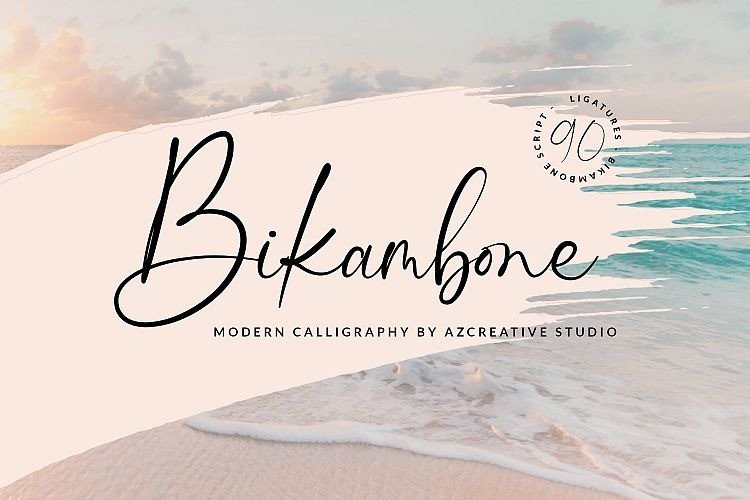
Bikambone Script Font
Bikambone Script Font is a script font with handwritten calligraphy style. This font was created with authentic handwritting brush pen. It’s designed and shared by Azcreative Studio.
It’s a modern and casual handwritten style font that is perfect for you to use in all kinds of designs such as invitation designs, posters, logos, flyers, and others. This font is perfect for fashion brand, wedding invitation, business card, logo brand, signature, and then calligraphy.